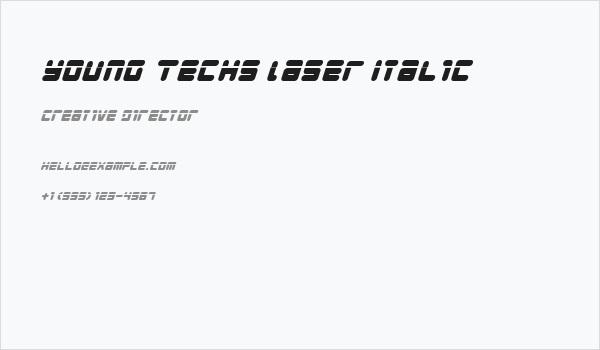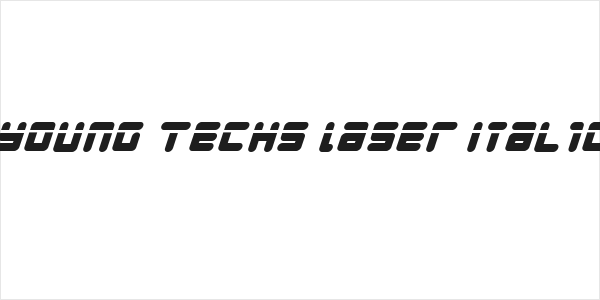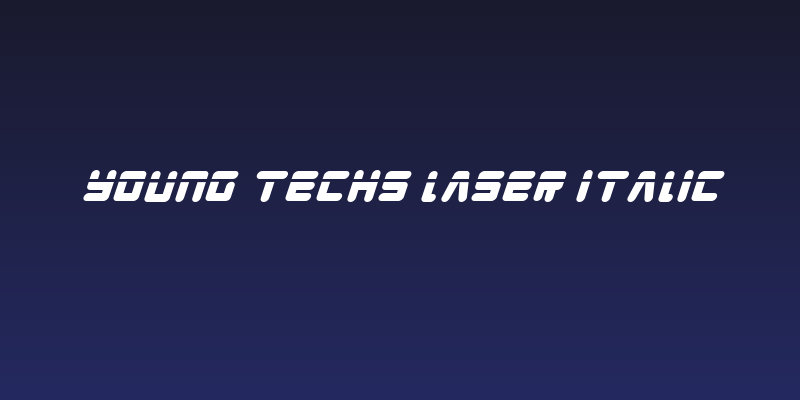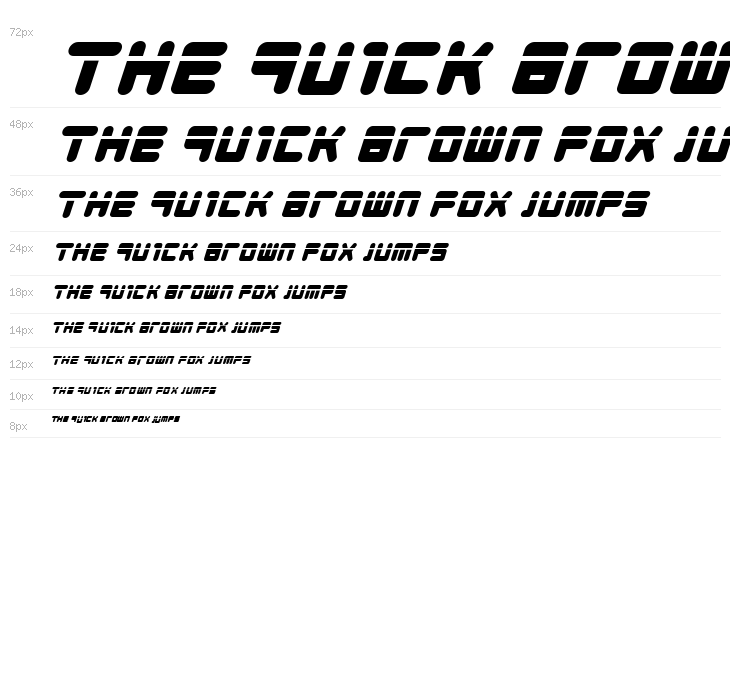
Young Techs Laser Italic Font
Young Techs Laser Italic Description
This font exhibits a futuristic and sleek design, characterized by its bold and italicized letterforms. The letters are constructed with a consistent stroke width, giving it a uniform appearance. The rounded edges and geometric shapes contribute to its modern aesthetic, making it suitable for technology-related themes. The font maintains a balanced spacing between characters, ensuring readability while preserving its distinctive style. Its bold presence is complemented by a slight slant, enhancing its dynamic and forward-looking appeal.